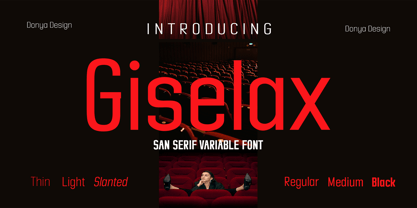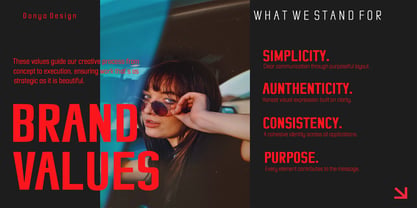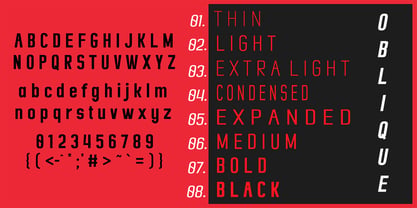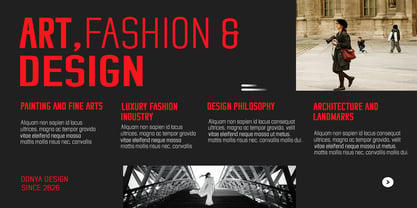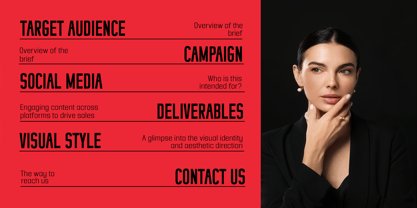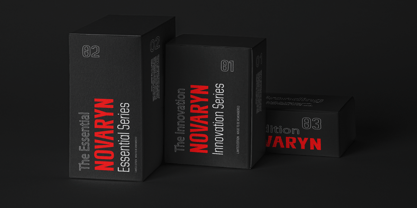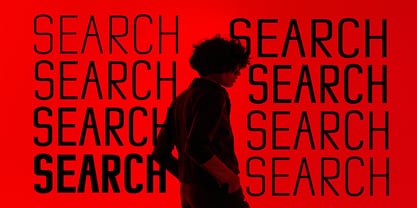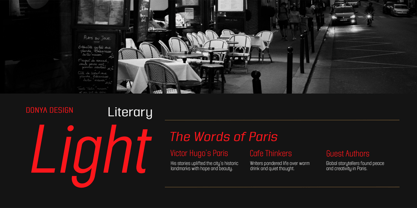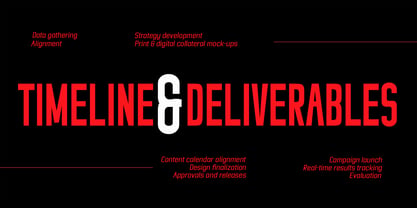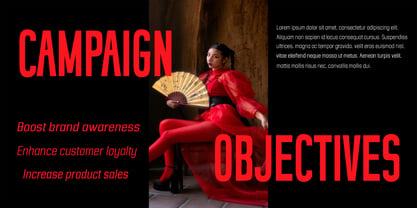
Giselax
The Giselax Font Family was designed by Teuku Muslyawan and published by DonyaDesign. Giselax contains 36 styles. More about this family
Giselax is a high-contrast typeface that draws inspiration from both transitional and contemporary typographic styles. It features a versatile range of weights from Thin to Black, allowing for diverse applications. The natural curves and thickened, slanted stems give the font a distinctive character that intensifies with weight. Lighter weights offer reduced contrast and optical corrections, resulting in a warm, soft aesthetic. Giselax includes elegant italics, optimized weight variations, and extensive language support. It excels in display applications such as headlines, titles, branding, logo design, packaging, magazine headers, and advertisements, as well as in both short and long-form text. Additionally, Giselax is available in two Variable versions (Regular and Italic), enabling designers to explore and refine their creations while revealing a wide range of visual nuances and subtle details.